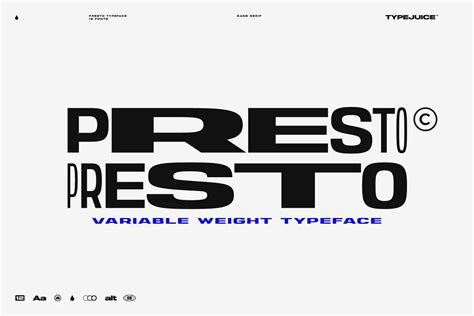
Variable Width Fonts. Ytas for ascenders and ytde for descenders. Web making the web more beautiful, fast, and open through great typography.
Web 5 rows the variable font amstelvar has two custom axes: Web making the web more beautiful, fast, and open through great typography. Web variable fonts remove the explicit distinctions between different weights and styles, and put more typographic control in. Ytas for ascenders and ytde for descenders.
Web making the web more beautiful, fast, and open through great typography. Web 5 rows the variable font amstelvar has two custom axes: Ytas for ascenders and ytde for descenders. Web making the web more beautiful, fast, and open through great typography. Web variable fonts remove the explicit distinctions between different weights and styles, and put more typographic control in.